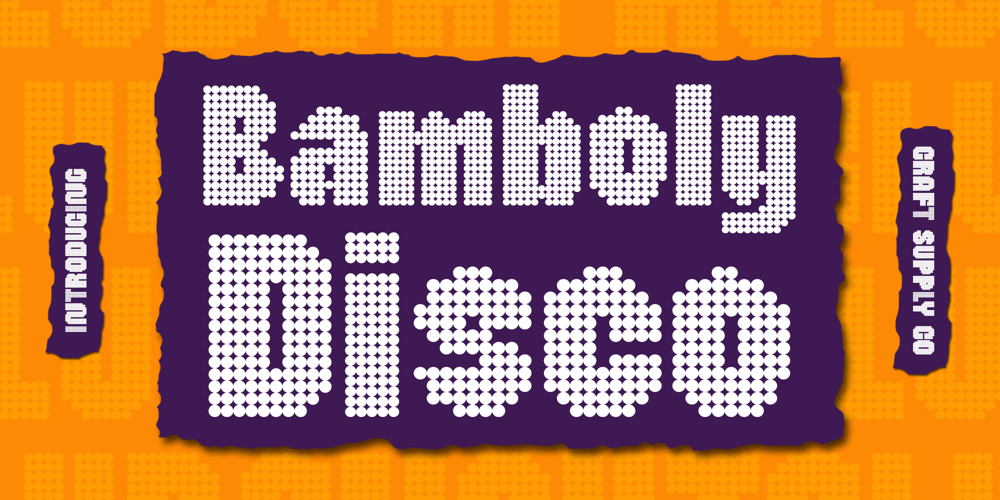
Bamboly Disco Font Family was designed by Trio Nazzar Saputra, Wahyu Hadi Yuana and published by Craft Supply Co. Bamboly Disco contains 2 styles and family package options. Bamboly Disco: Groovy Display TypographyVibrant Sans Serif BoldBamboly Disco showcases a bold sans-serif design infused with vibrant dot effects, evoking a disco-inspired vibe that’s perfect for eye-catching displays.Disco-Inspired NuanceDrawing inspiration from the disco era, This font exudes energy and excitement with its dynamic dot effects, adding a touch of retro charm to any design project.Ideal for Attention-Grabbing DisplaysTailored for attention-grabbing displays, This font is your go-to choice for posters, banners, and promotional materials where boldness and impact are paramount.Versatile ApplicationBeyond its disco-inspired aesthetic, This font offers versatility in application, seamlessly blending into various design contexts to inject a dose of fun and excitement.Where Boldness Meets Disco VibesThis font stands out as a vibrant and dynamic display font, infusing disco-inspired elements with bold sans-serif design. Whether it’s for posters, banners, or digital displays, This font brings a groovy touch to your projects, ensuring they shine bright on any platform.